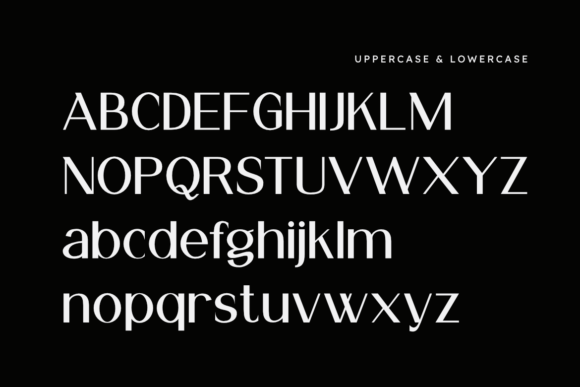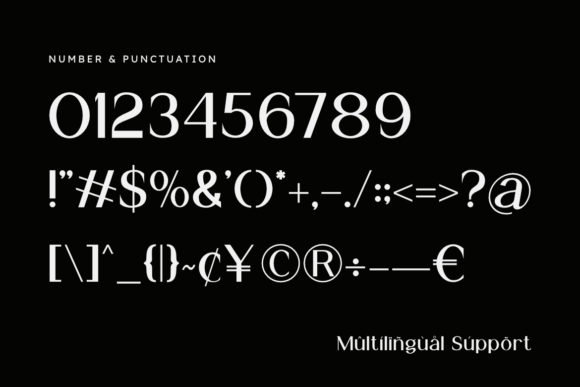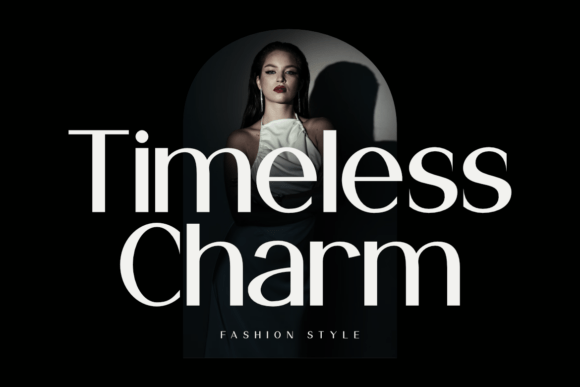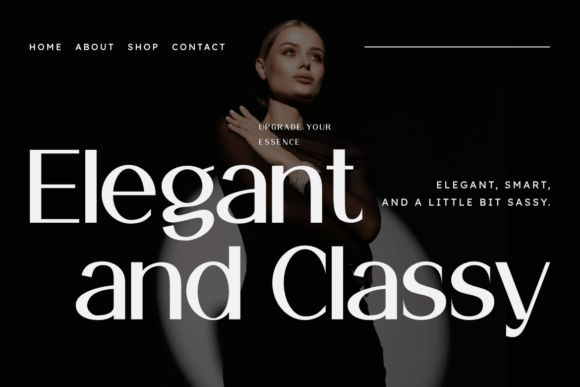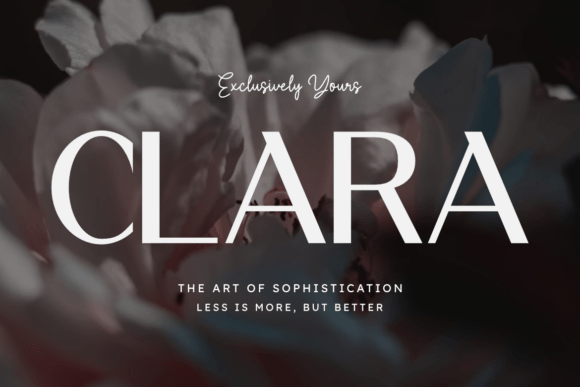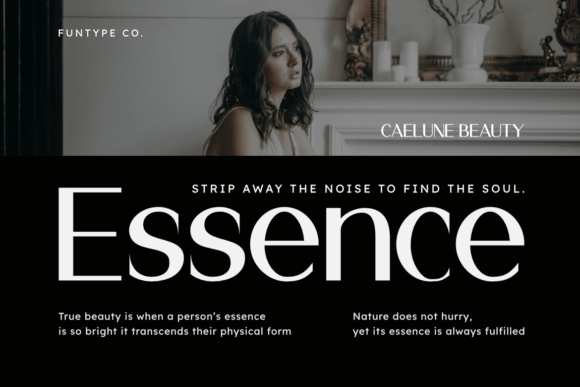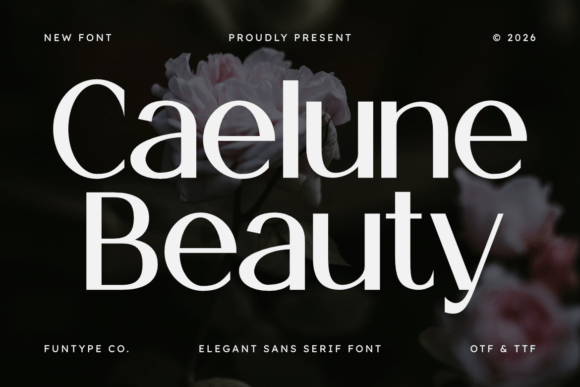
Introducing Caelune Beauty Font: Elevate Your Designs with Elegance and Luxury
In the world of typography, a font can make or break the aesthetic of a design. For those seeking to infuse their work with a touch of sophistication and high-end style, Caelune Beauty Font is an exceptional choice. This high-contrast sans serif font is meticulously designed to embody elegance and luxury, making it a perfect fit for designers aiming to create stunning visual experiences.
Inspiration from Modern Fashion and Timeless Beauty
Caelune Beauty draws its inspiration from the realms of modern fashion and timeless beauty. The font’s design is influenced by the sleek lines, refined aesthetics, and attention to detail commonly found in high-fashion branding and editorials. The result is a typeface that exudes a sense of refinement and poise, perfect for projects that demand a premium feel.
Key Features of Caelune Beauty Font
- High-Contrast Design: The font’s high-contrast design allows for a striking visual balance between thick and thin strokes, creating a dramatic and elegant appearance.
- Clean Lines and Delicate Strokes: Caelune Beauty features clean, crisp lines paired with delicate strokes, giving it a sophisticated and luxurious look.
- Refined Letterforms: Each letterform in Caelune Beauty is carefully crafted to offer a seamless blend of contemporary style and classic grace, making it suitable for high-end editorial and lifestyle designs.
Ideal for Display Purposes
Caelune Beauty is specifically crafted for display purposes, making it shine in large headlines and branding materials. Its refined and elegant appearance ensures that it commands attention while maintaining a level of sophistication that is hard to achieve with standard fonts.
For designers and crafters looking to elevate their projects, Caelune Beauty offers a range of possibilities. Whether you’re working on:
- High-End Editorial Designs: Add a touch of luxury to your editorials with Caelune Beauty’s refined and elegant typography.
- Lifestyle Branding: Create a premium feel for your brand with a font that speaks of sophistication and elegance.
- Fashion Magazines and Websites: Stand out with a font that resonates with modern fashion aesthetics.
Why Choose Caelune Beauty Font?
Choosing Caelune Beauty for your design projects offers several advantages:
- Unique Aesthetic: The font’s unique high-contrast design and elegant strokes provide a distinctive look that sets it apart from more common typefaces.
- Versatility: While designed for display purposes, Caelune Beauty’s versatility means it can also be used for smaller text sizes where a premium feel is desired.
- Easy to Read: Despite its elegant and delicate design, Caelune Beauty maintains readability, making it a practical choice for a wide range of applications.
Caelune Beauty Font is a game-changer for designers and crafters looking to infuse their work with a sense of elegance and luxury. Its high-contrast sans serif design, inspired by modern fashion and timeless beauty, makes it a versatile and sophisticated choice for a variety of projects. Whether you’re aiming to create stunning editorial designs, luxurious branding materials, or simply want to add a touch of sophistication to your work, Caelune Beauty is an essential tool in your typographic arsenal.
Elevate your designs with Caelune Beauty Font and experience the difference that a truly premium typeface can make.